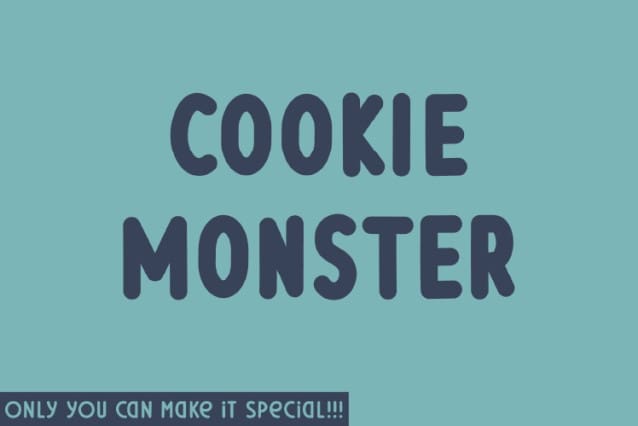
Cookie Monster Font
Cookie Monster feels playfully nostalgic and delivers an incredible vintage aesthetic. Use this serif font to add that special retro touch to any design idea you can think of!